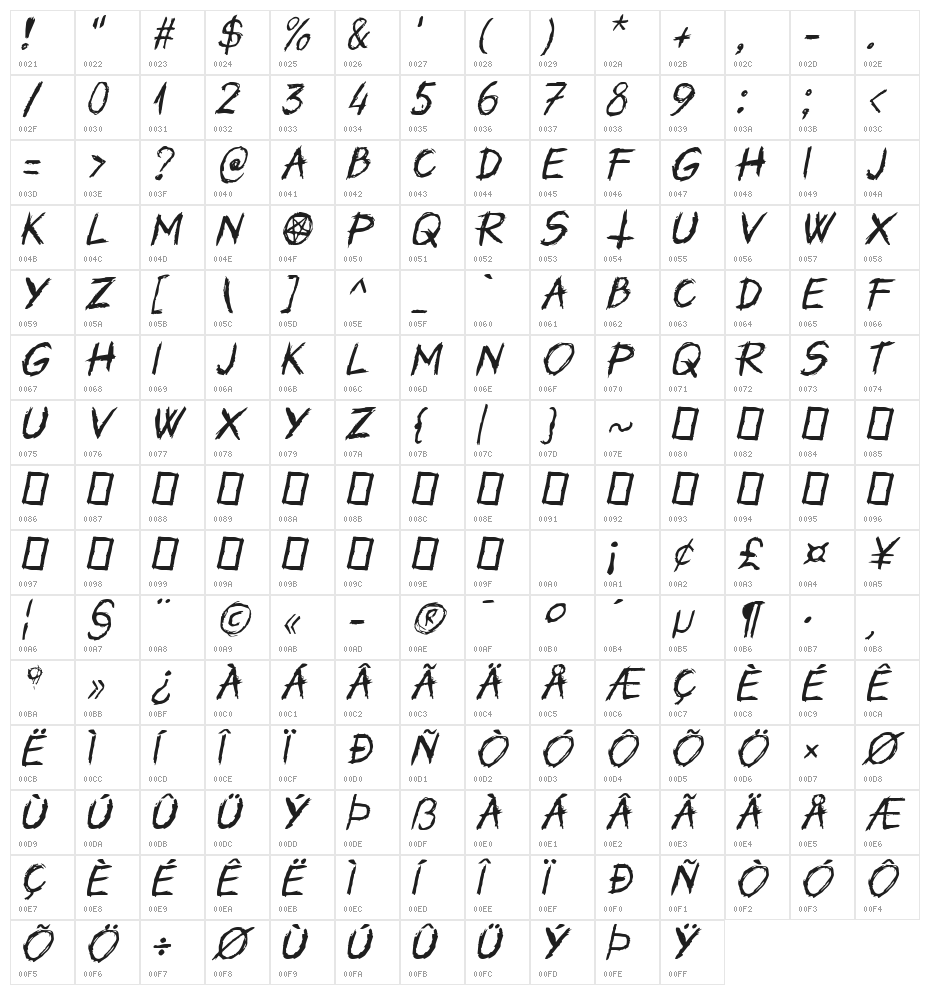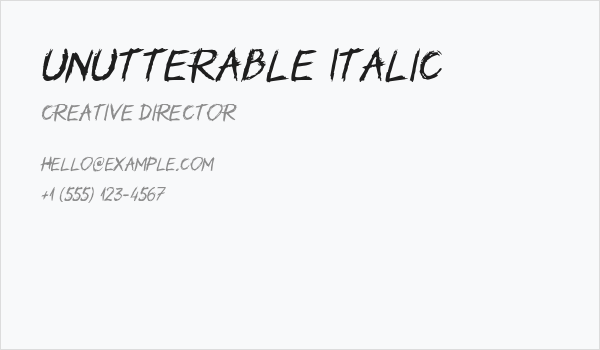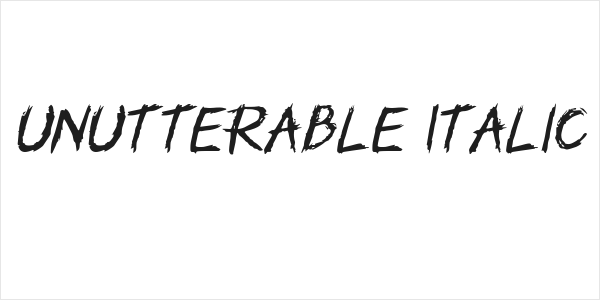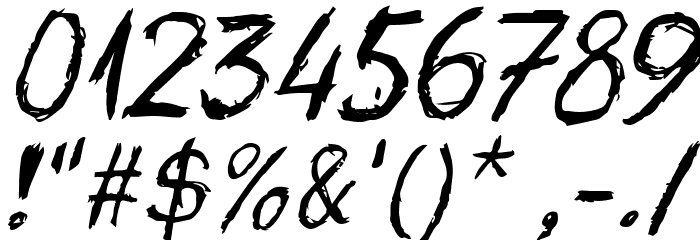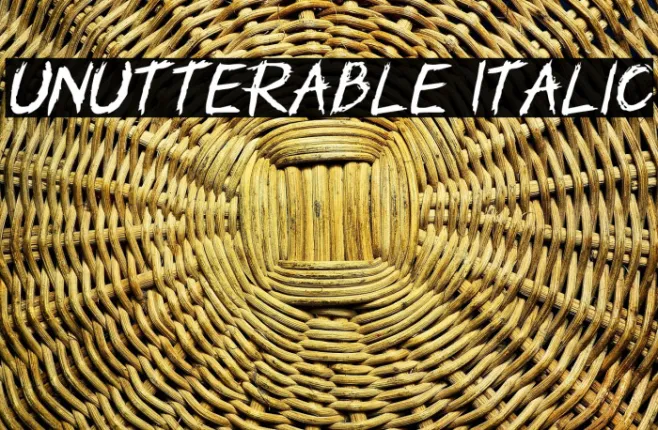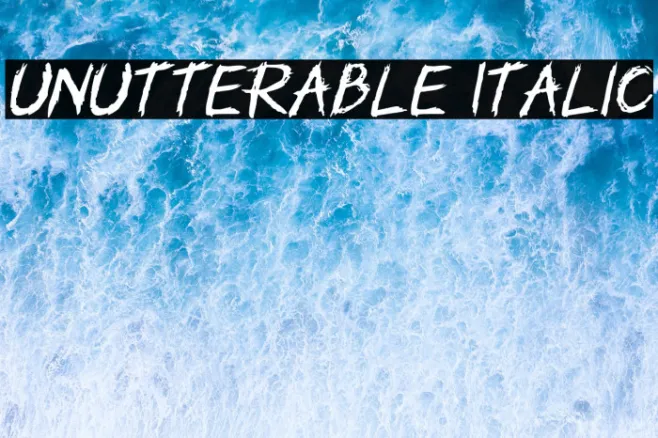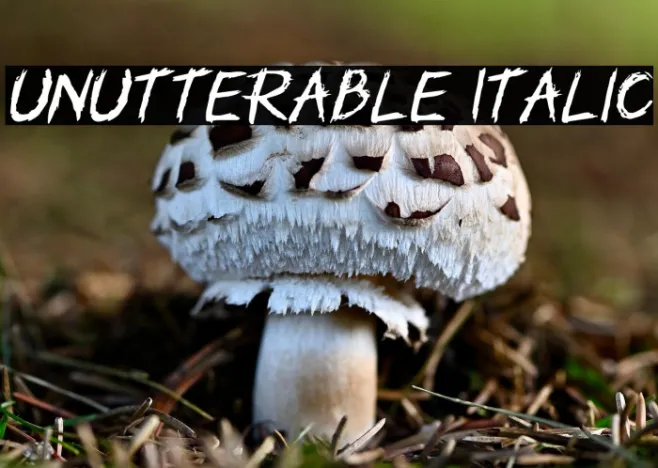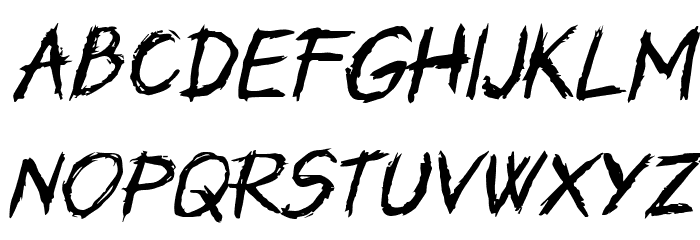
Unutterable Italic Font
Unutterable Italic Description
This font features a bold, distressed style with a hand-drawn appearance. The characters are slightly slanted, giving an italicized look, and have a rough, textured edge that suggests a sense of urgency or intensity. The uppercase and lowercase letters maintain a consistent style, with exaggerated strokes and a dynamic flow. Numbers and special characters follow the same aesthetic, providing a cohesive look across all glyphs. The font's unique design makes it stand out, perfect for projects that require a strong visual impact.
| Overall Style | Modern, Edgy |
| Proposed Projects | Ideal for music album covers, horror movie posters, edgy branding, and rebellious fashion labels. |